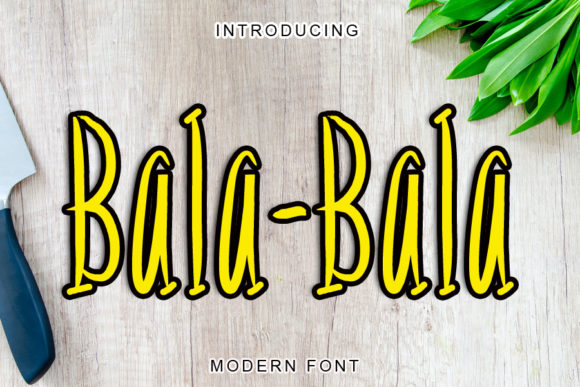
Bala-bala Font: Elevate Your Creative Projects with a Simple yet Striking Display Font
In the realm of typography, fonts play a pivotal role in conveying messages, evoking emotions, and adding aesthetic appeal to designs. Among the myriad of fonts available, the Bala-bala font stands out for its simplicity, neatness, and lettered display elegance. This article aims to explore the Bala-bala font in depth, understanding its characteristics, and how it can be a game-changer for your creative projects.
What is Bala-bala Font?
Bala-bala is a simple and neat lettered display font that has been gaining attention for its clean and elegant look. Designed to make a statement, Bala-bala offers a fresh take on traditional display fonts, with an emphasis on readability and style. Its simplicity makes it versatile, allowing it to be used across various platforms and design contexts.
Characteristics of Bala-bala Font
- Simplicity: The Bala-bala font boasts a straightforward design, free from unnecessary embellishments. This simplicity ensures that the text is easy to read, even at larger sizes.
- Neatness: Each letter in the Bala-bala font is meticulously crafted to ensure a neat and uniform appearance. This neatness contributes to the font’s professional look, making it suitable for a wide range of applications.
- Elegance: Despite its simplicity, the Bala-bala font exudes a certain elegance that can elevate the visual appeal of any design. Its lettered display style adds a touch of sophistication, making it perfect for projects that require a bit of flair.
- Versatility: The Bala-bala font’s clean and simple design makes it highly versatile. It can be used in various contexts, from digital platforms like websites and social media to print materials such as posters, flyers, and brochures.
How to Use Bala-bala Font in Your Creative Projects
Incorporating the Bala-bala font into your creative projects can significantly enhance their visual appeal and effectiveness. Here are some ideas on how to use this font:
- Branding: Use the Bala-bala font for your brand’s logo or marketing materials to give them a clean, modern look. Its simplicity and elegance can help in creating a strong and memorable brand identity.
- Web Design: The Bala-bala font can be a great choice for website headers, titles, and key messaging. Its readability ensures that your website’s content stands out and communicates effectively with visitors.
- Social Media Graphics: Create engaging social media graphics with the Bala-bala font. Whether it’s a promotional offer, an announcement, or a quote, this font can help make your content more visually appealing and engaging.
- Print Materials: For print materials like posters, flyers, and brochures, the Bala-bala font can serve as an excellent choice for titles and headings. Its neatness and elegance can make your print materials stand out.
Benefits of Using Bala-bala Font
The Bala-bala font offers several benefits that make it an attractive choice for designers and creatives. Some of these benefits include:
- Enhanced Readability: The simplicity of the Bala-bala font ensures high readability, even at larger sizes. This is particularly beneficial for digital platforms where legibility can be a challenge.
- Professional Look: The neat and elegant design of the Bala-bala font gives any project a professional appearance. This can be especially advantageous for businesses looking to create a strong brand image.
- Versatility: As mentioned earlier, the Bala-bala font’s versatility allows it to be used across various design contexts. This flexibility makes it a valuable addition to any designer’s toolkit.
- Emotional Connection: Fonts can evoke emotions and convey messages. The Bala-bala font, with its clean and elegant look, can help create a positive and modern impression on viewers.
Tips for Using Bala-bala Font Effectively
To maximize the impact of the Bala-bala font in your designs, consider the following tips:
- Pair with complementary fonts: When using the Bala-bala font for headings or titles, pair it with a complementary font for body text. This contrast can enhance readability and visual appeal.
- Experiment with sizes and colors: Don’t be afraid to experiment with different sizes and colors of the Bala-bala font. This can help in creating visual hierarchy and adding emphasis to key messages.
The Bala-bala font is a simple yet striking display font that can elevate the visual appeal of your creative projects. Its simplicity, neatness, and elegance make it a versatile choice for various design contexts, from digital platforms to print materials. By understanding the characteristics of the Bala-bala font and how to use it effectively, designers and creatives can leverage its benefits to create visually appealing and impactful designs. Whether you’re looking to enhance your brand’s identity, create engaging social media graphics, or simply add a professional touch to your projects, the Bala-bala font is an excellent choice to consider.